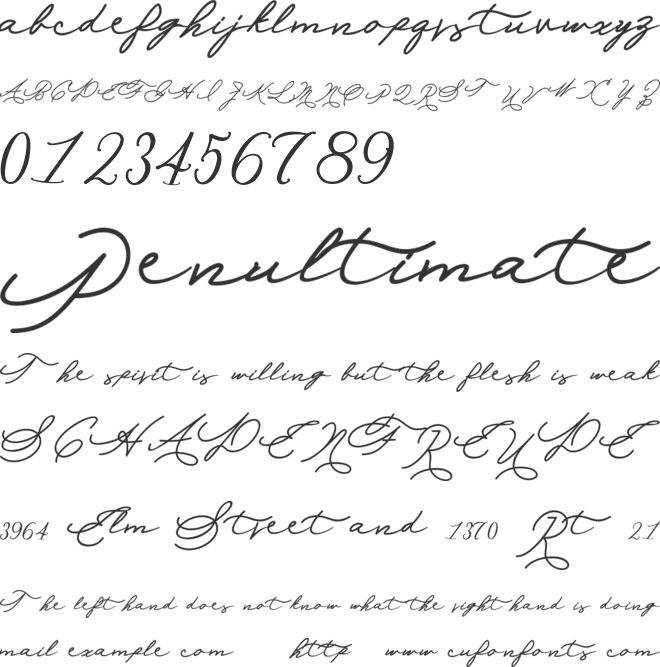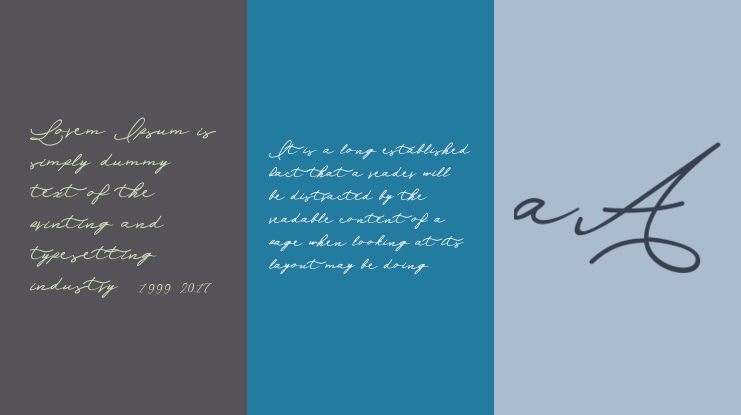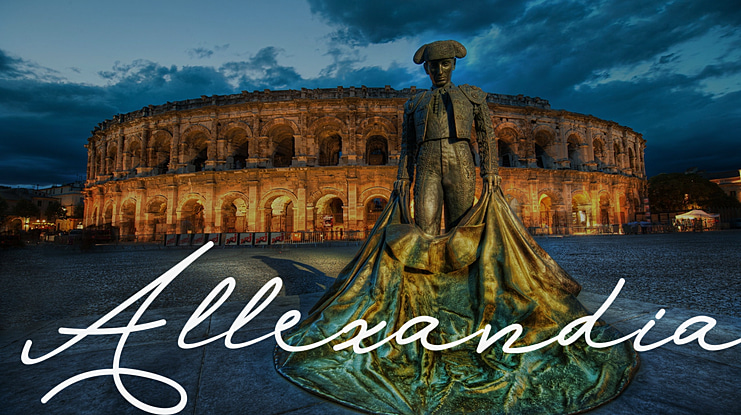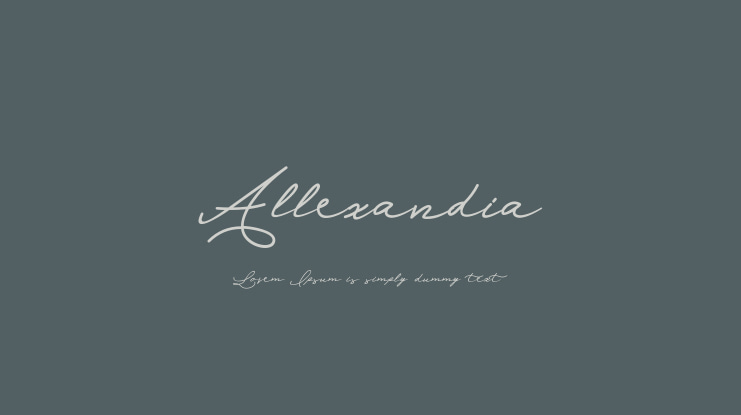
Allexandia Font
Allexandia Font is a beautiful handwritten font with a natural and elegant caligraphy look. It
can be used in a wide range of design projects and is easy to use. Allexandia comes with uppercase, lowercase, standard punctuation, and numbers. Allexandia has variety of unique handmade-look outcomes that can be combined together with a
large range of designs.